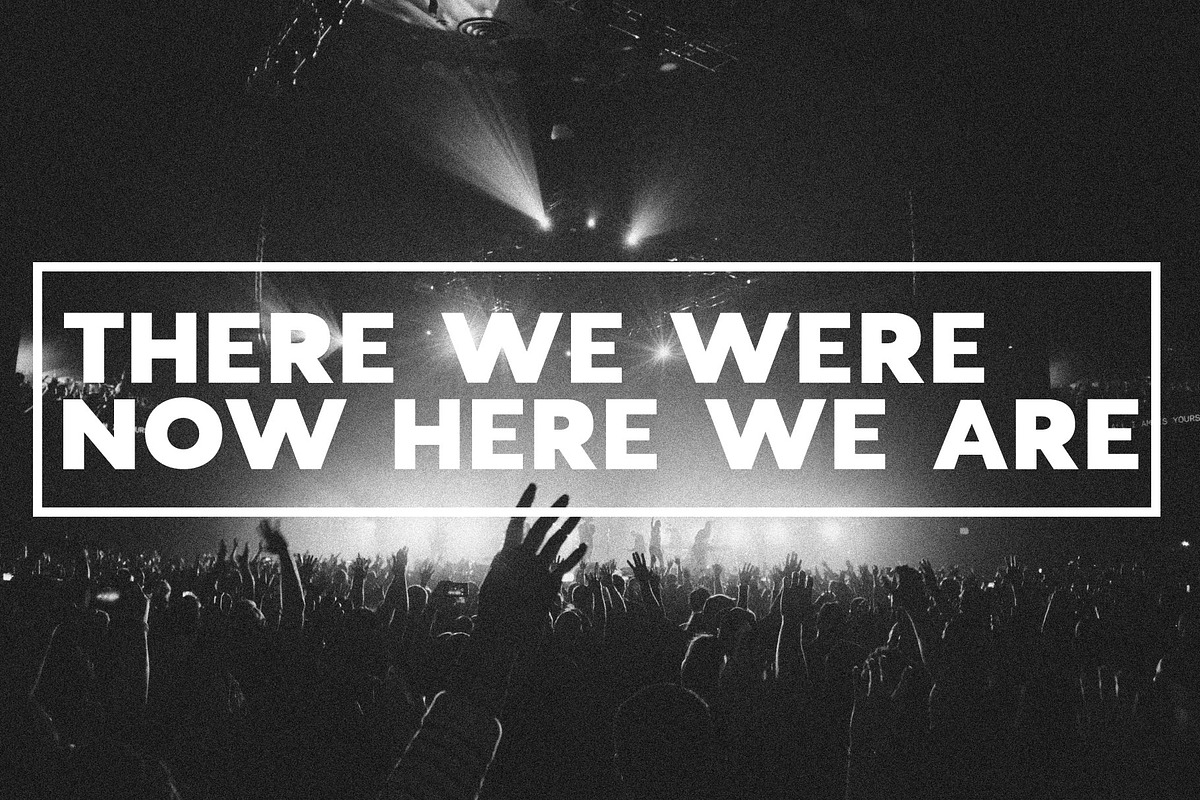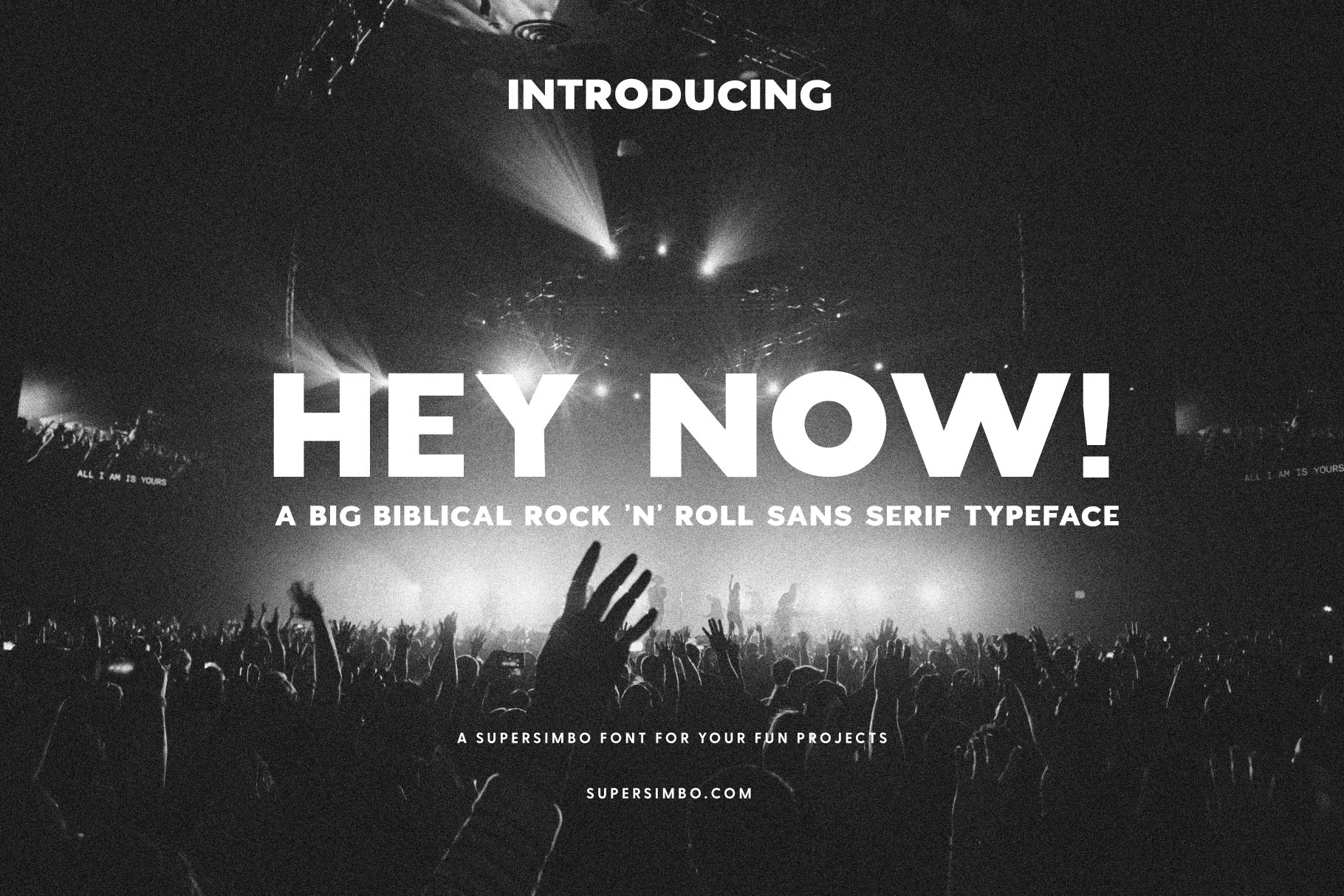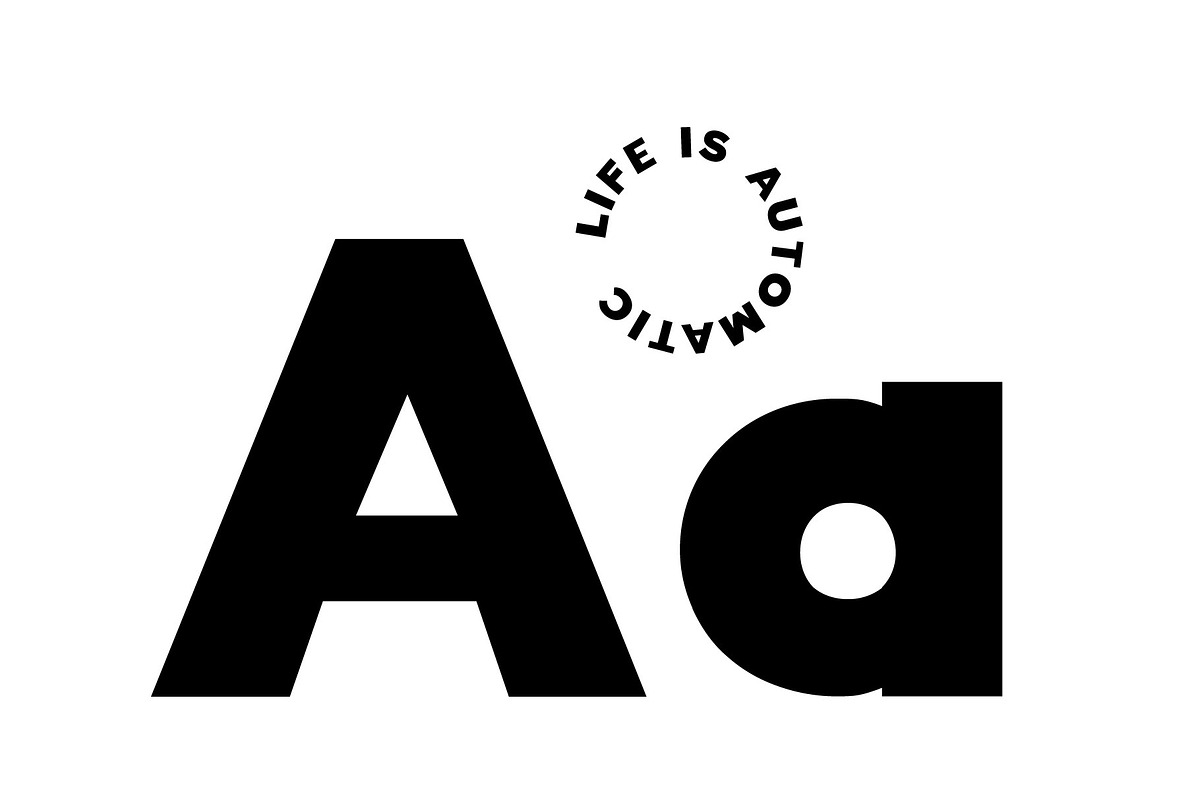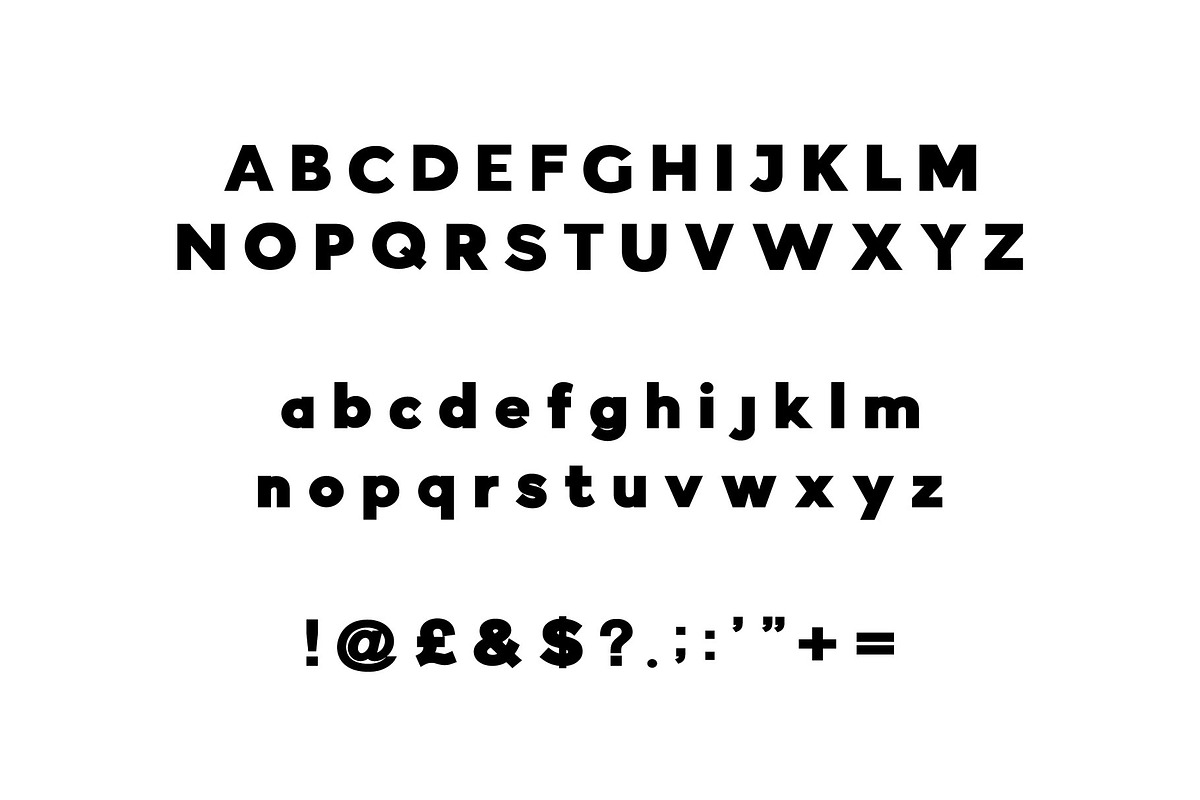
Hey Now | Sans Serif Font
A Big Biblical rock ‘n’ roll sans serif font! Hey Now is just classic big bold type for your headlines, posters and band reunion announcements.
Hey Now is a san serif font designed by Ally Simpson, a supersimbo font for your fun projects.font